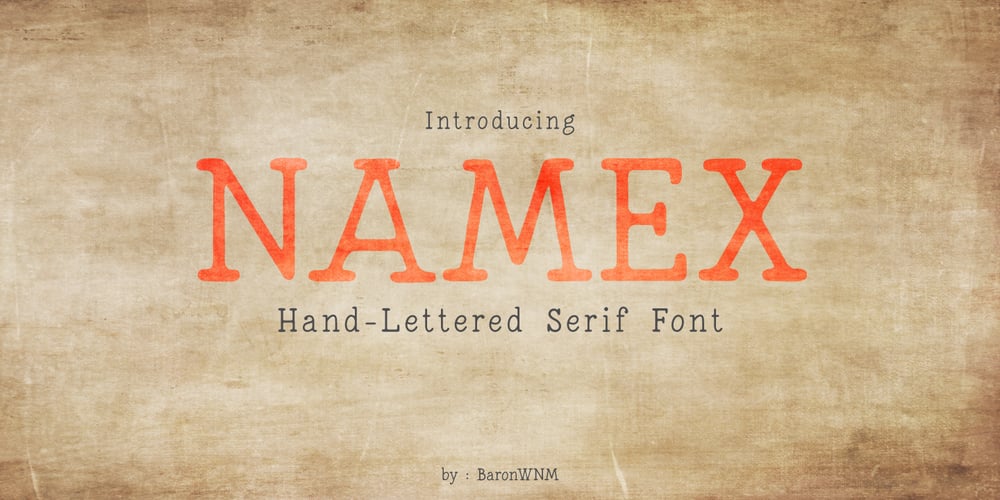
Namex Font Family was designed by Rahmad Mulyadi and published by BaronWNM. Namex contains 1 styles and family package options. Namex is a handwritten font with serifs. It tends to be a slab serif style while maintaining the hand-drawn shape, making it look original and non-standard. We recommend you use this font for retro and warm decoration designs.